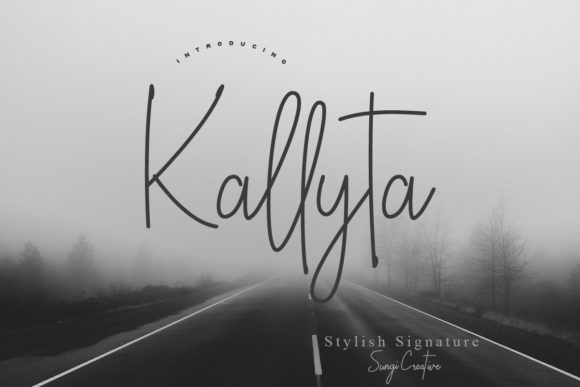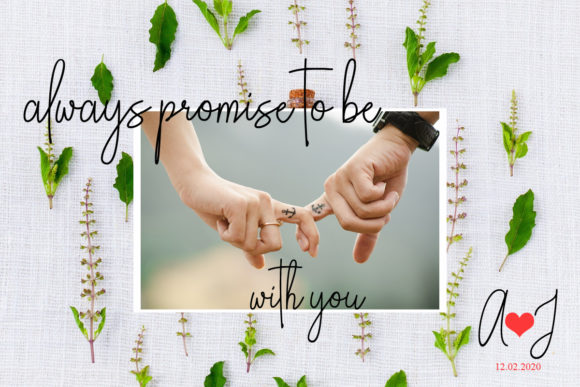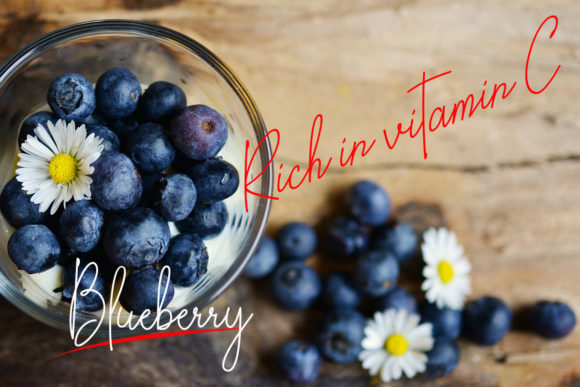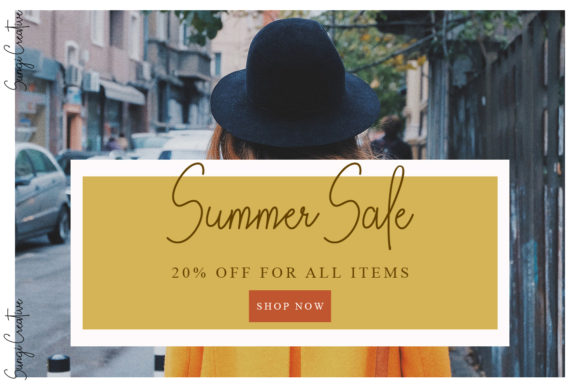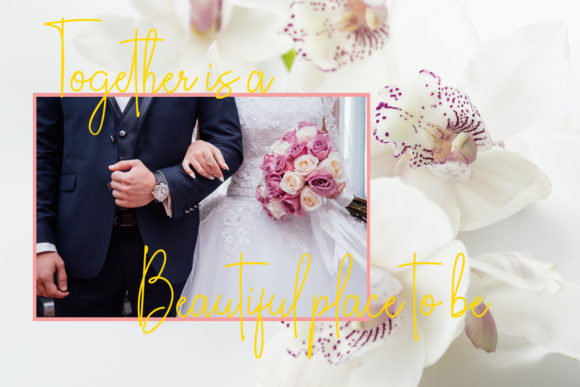
Kallyta Font
About Kallyta Font
Kallyta is a stylish signature font. It will elevate a wide range of design projects to the highest level, be it branding, headings, wedding designs, invitations, signatures, logos, labels, and much more!